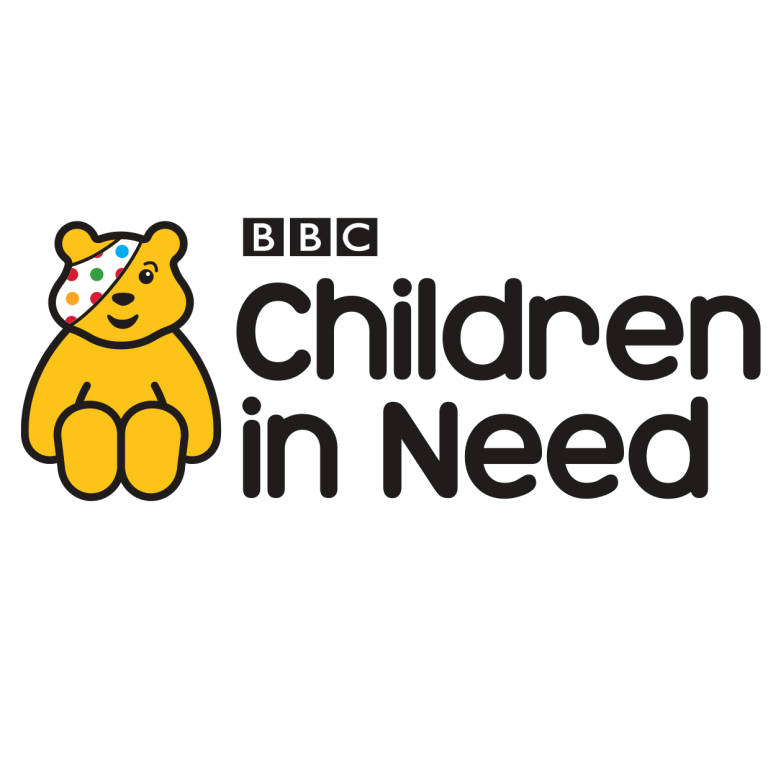
Children in Need Font
Fonts in UseChildren in Need is a UK charity that raises funds to support disadvantaged children and young people across the country. It funds various projects and organizations that provide practical, emotional, and financial support to improve their lives.
The logotype features a font that resembles Marshmallow, a set of five all-lowercase typefaces created by Ben Balvanz and published by T-26.